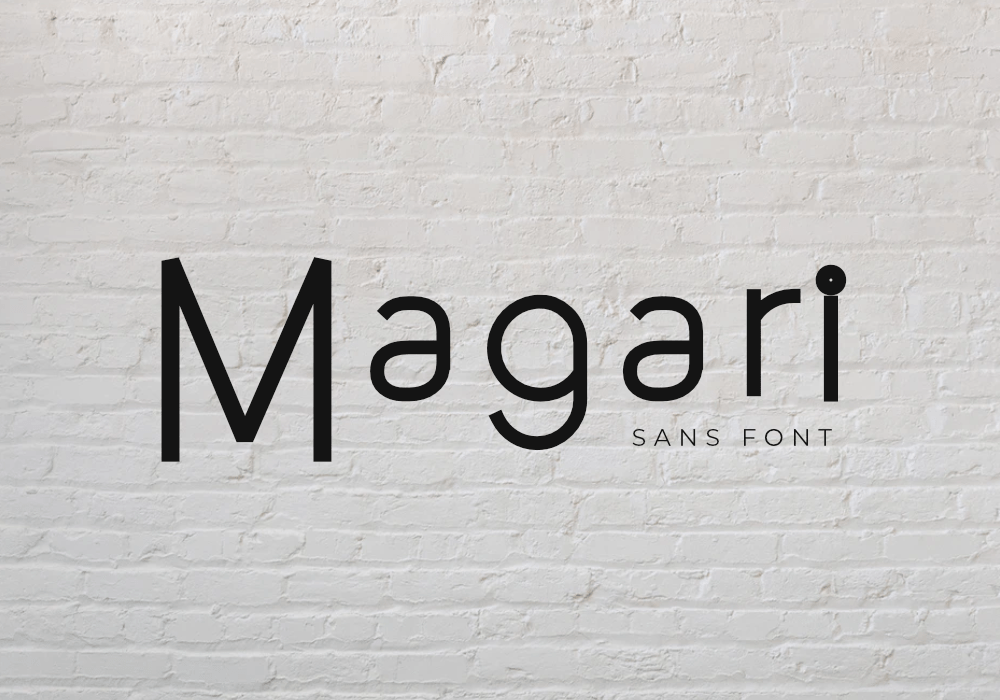
Magari Font Family by GraphicsFamily Picking the right font for your creative projects. Magari Font is a distinct, elegant sans serif font family that blends traditional influences into a contemporary aesthetic. It will look particularly adept when used in logos, branding, packaging design, and much more. Use it and let it tell your brand story